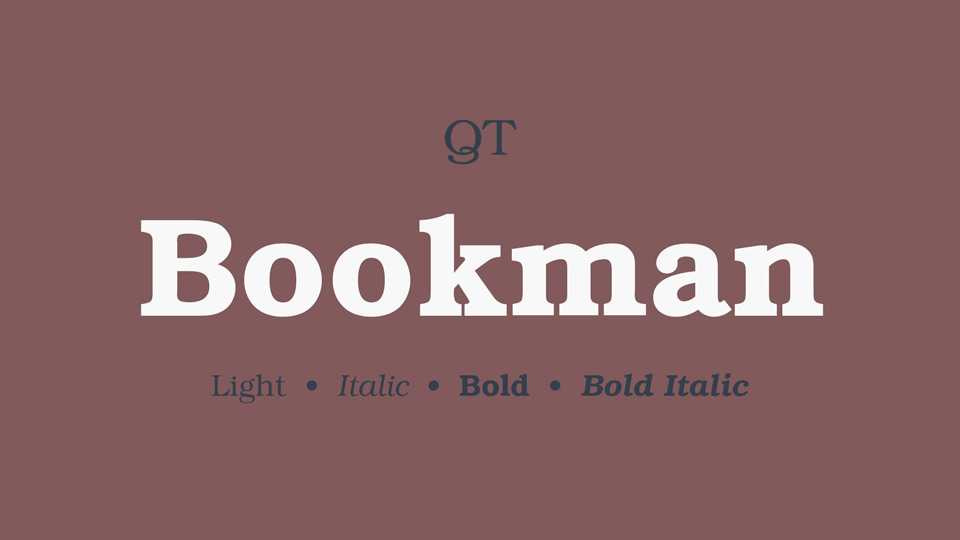
Download QT Bookmann typeface, a serif font family in two weights with corresponding Italics. Bookmann can be used for both display typography and for printing at small sizes such as in trade printing, and less commonly for body text.